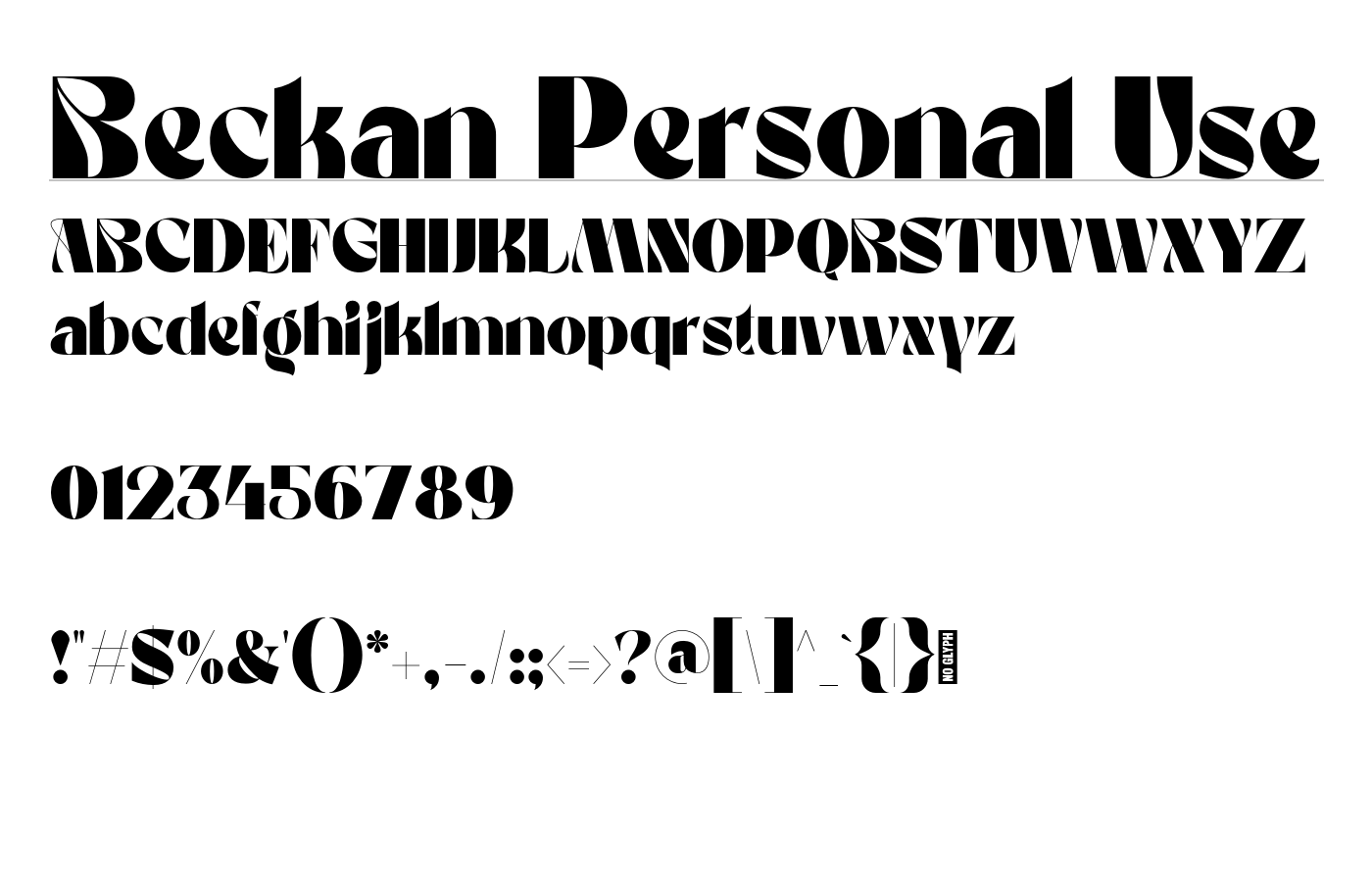
Beckan Personal Use is a bold serif font with a striking contrast between thick and thin strokes, featuring sharp, geometric shapes and elegant bracketed serifs. Its strong presence and artistic flair make it perfect for eye-catching headlines, logos, and luxury branding that aim to convey a modern yet sophisticated personality. This font shines in design projects where style and bold expression are key.
Beckan Personal Use Font
About Beckan Personal Use Font